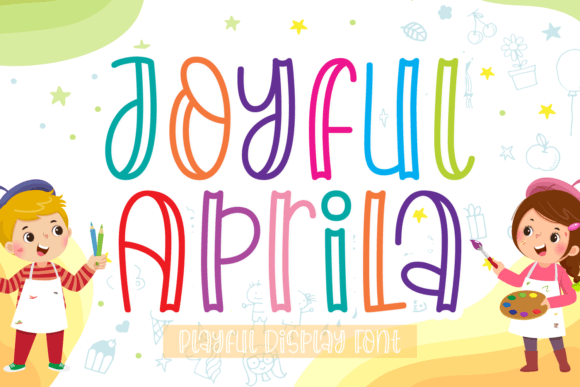
Unleash your creativity and let the whimsical world of Joyful Aprila Font enchant you! This playful display font is a symphony of bubbly curves and unexpected angles, sure to bring a smile to anyone's face. Born from the imagination of Jasm (7NTypes), Joyful Aprila is a delightful fusion of joy and charisma, perfect for injecting a touch of magic into your designs.
With its energetic personality, Joyful Aprila is a natural choice for cover art, where it will captivate and engage your audience from the very first glimpse. The font's inherent charm shines through, making it an ideal choice for creating eye-catching posters, captivating social media graphics, or any project that demands a cheerful, playful touch.
Let Joyful Aprila take you on a journey of creative expression, where your designs will be infused with a sense of pure joy. Its versatility knows no bounds, whether you're crafting invitations that radiate positivity, designing cheerful marketing materials that leave a lasting impression, or creating whimsical personal projects that reflect your vibrant personality.
Step into the world of Joyful Aprila and discover a realm of endless creative possibilities. Let its playful spirit ignite your imagination and transform your designs into captivating works of art. From playful headlines that dance on the page to whimsical logos that exude warmth and charm, this font is the perfect companion for your creative vision.
So, embark on a delightful adventure with Joyful Aprila, where every letter tells a story of joy and wonder. Let your designs radiate pure happiness and captivate the hearts of those who behold them. Embrace the playful, quirky essence of this extraordinary font and unlock a world of creative possibilities that will leave you feeling inspired and exhilarated!